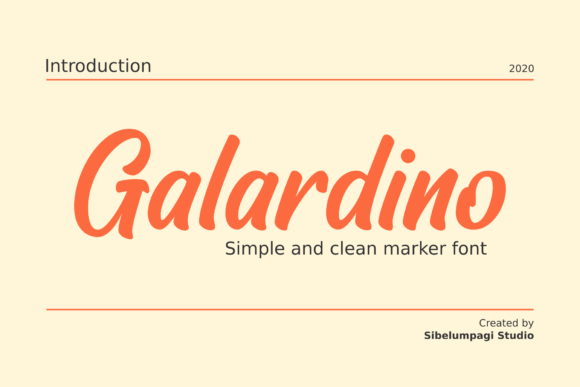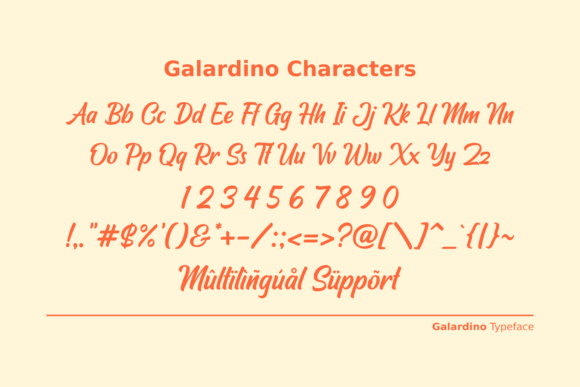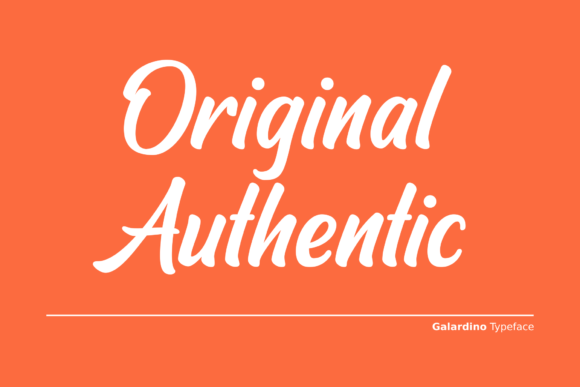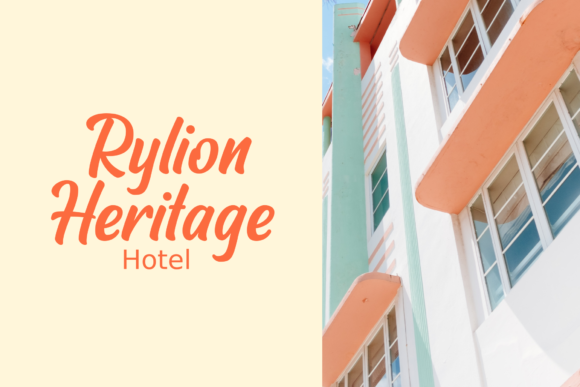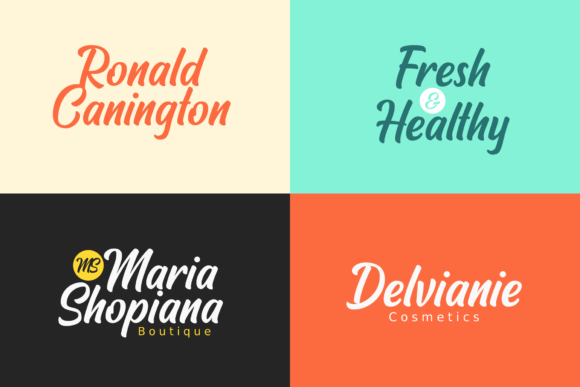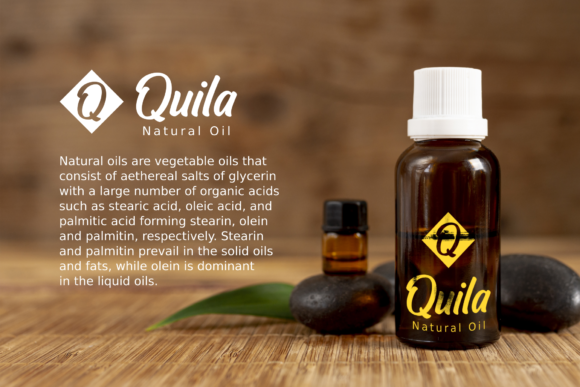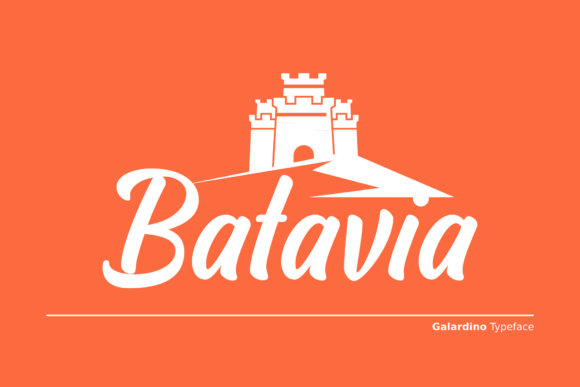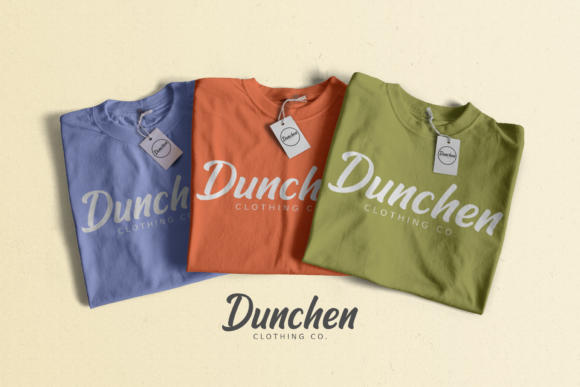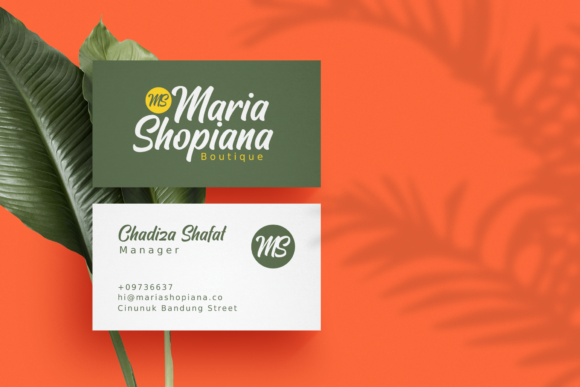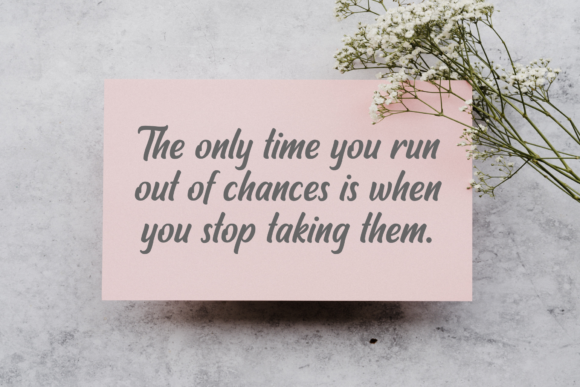
Galardino Font
About Galardino Font
Galardino is a clean and simple marker font. Its casual charm makes it appear wonderfully down-to-earth, readable and, ultimately, incredibly versatile. Use this gorgeous handwritten font to bring any DIY project to life!